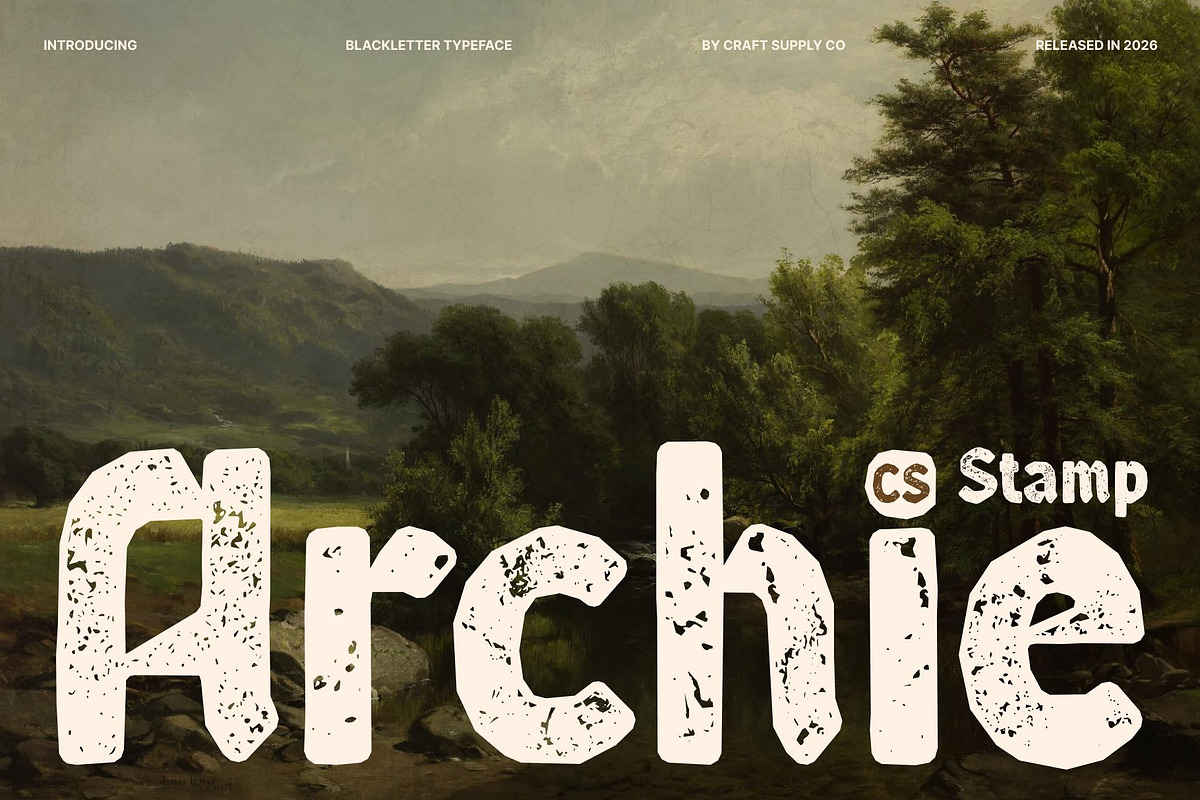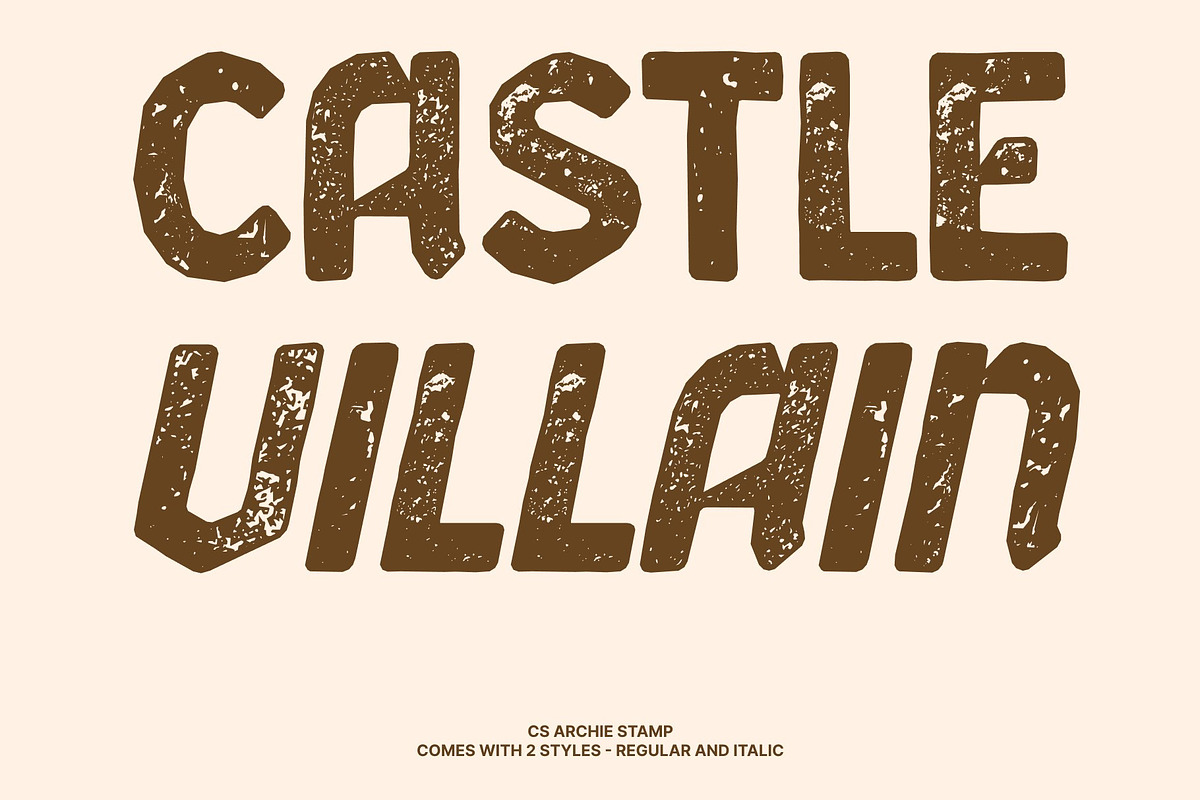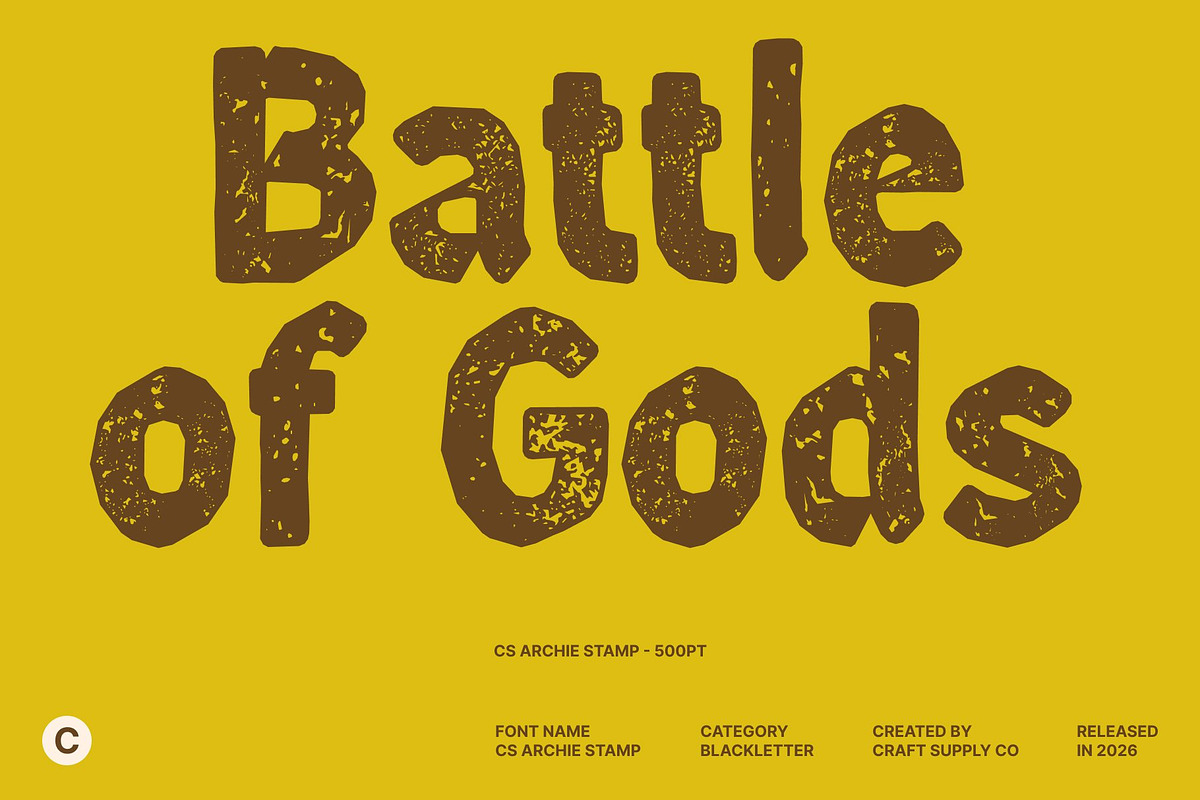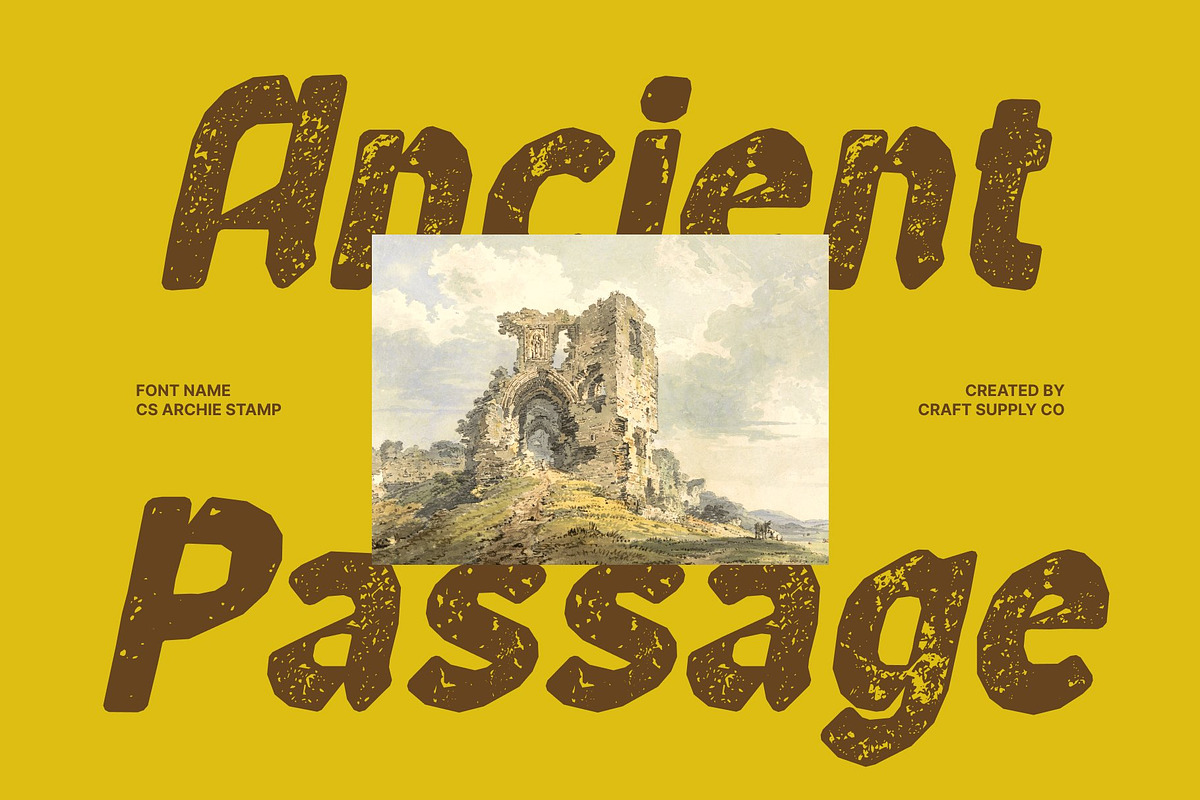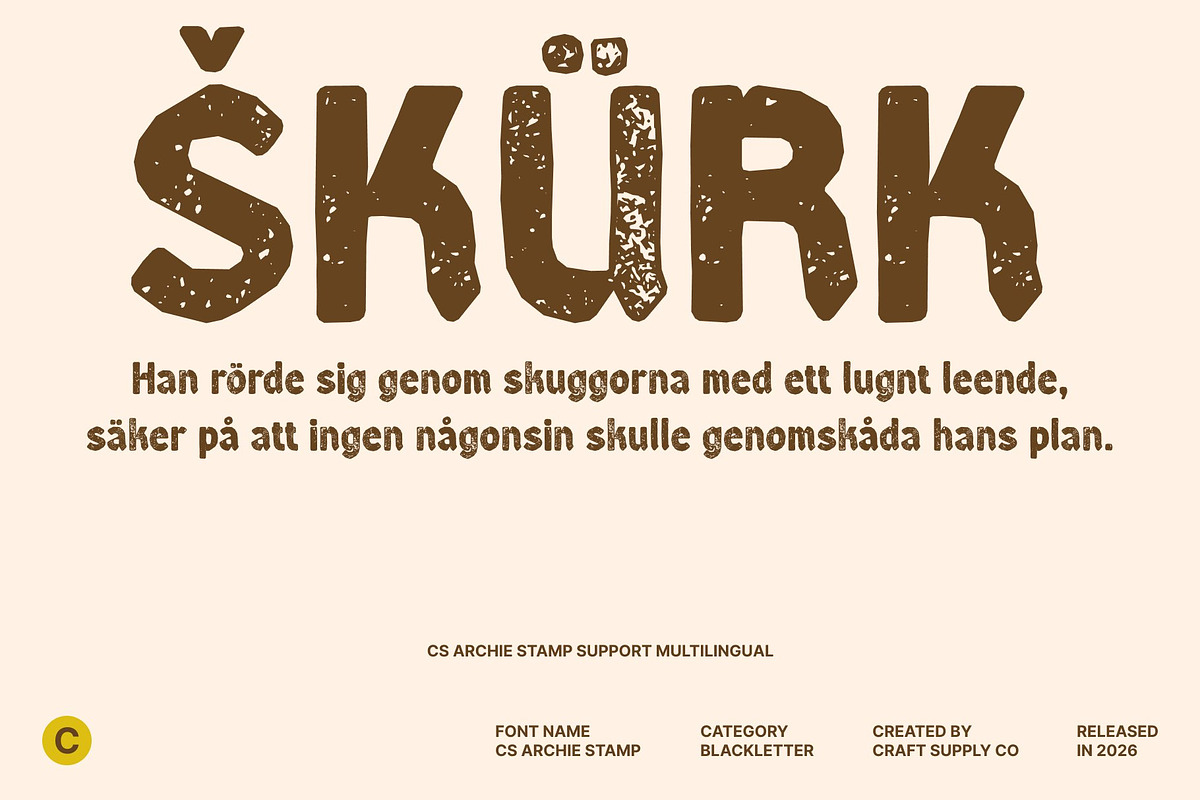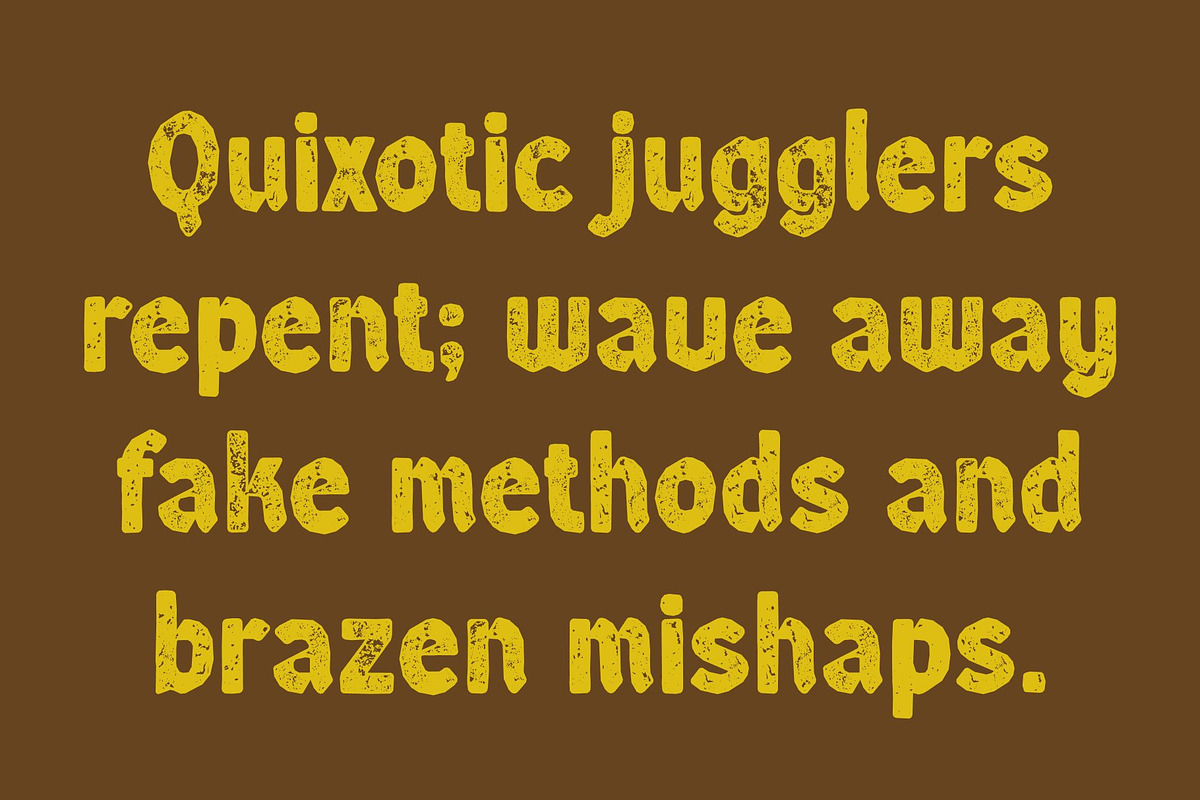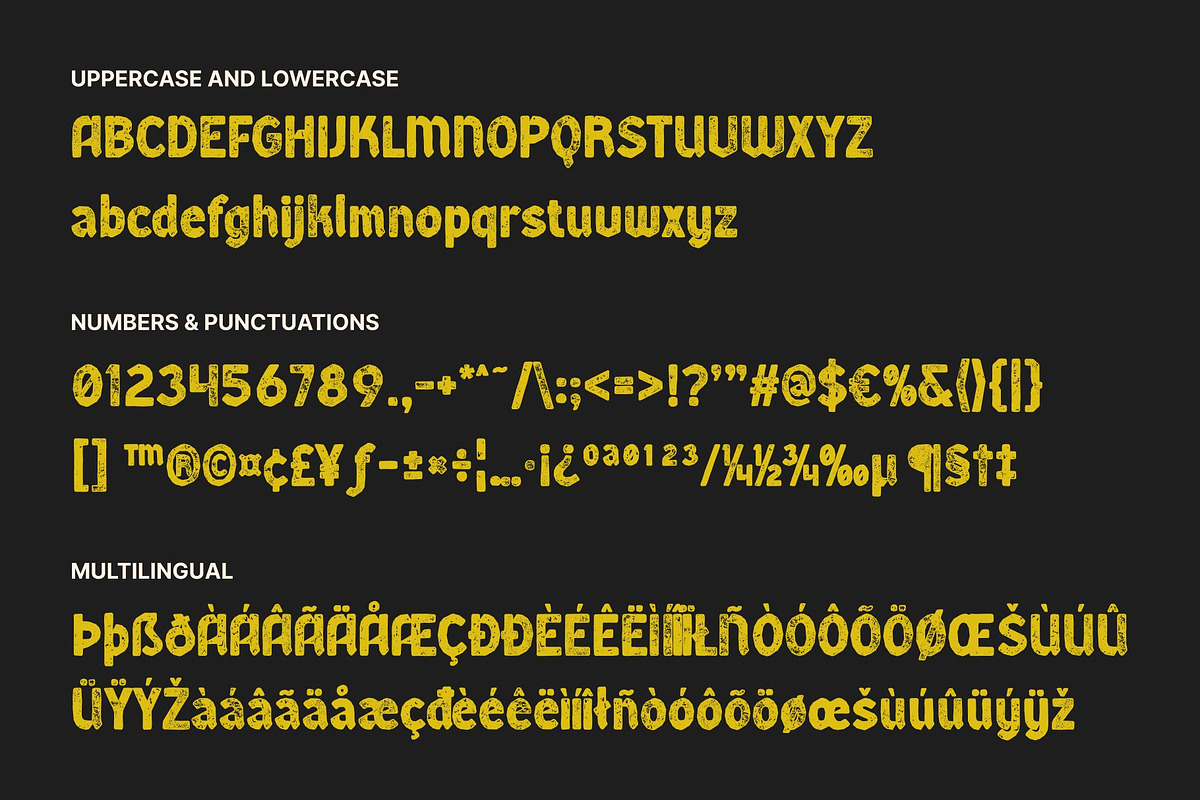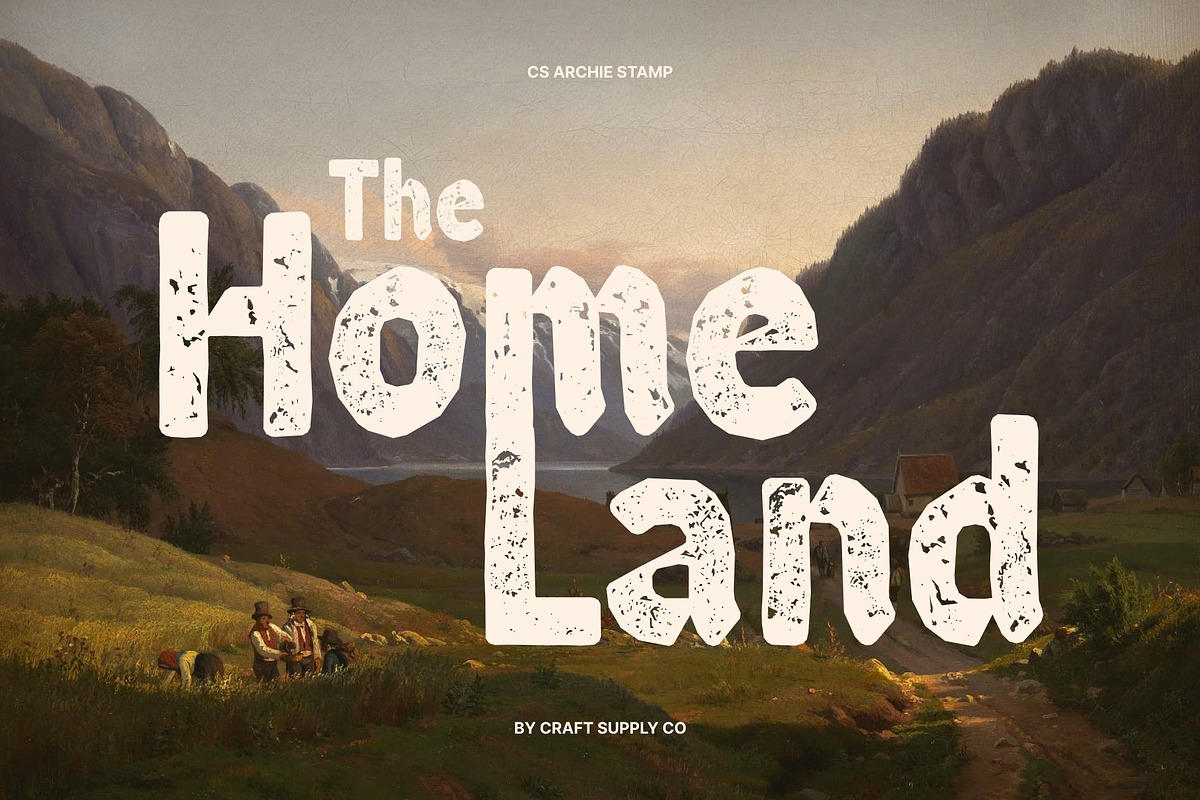
CS Archie Stamp
CS Archie Stamp – Blackletter Font: Classic Elegance Meets Modern Boldness Classic Blackletter Strength with Vintage Stamp Texture This is a modern Blackletter display font that merges classic elegance with bold contemporary strength, enhanced by a distinctive stamp effect. Its prominent, powerful letterforms retain the authoritative spirit of traditional Blackletter, while the stamped texture introduces a tactile, slightly distressed finish that evokes vintage print and handcrafted authenticity. The result is a font that feels commanding, expressive, and rich in character.
Striking Presence with Timeless Authority The bold Blackletter structure gives this font a strong and confident voice. Sharp details and solid strokes communicate prestige and dominance, while the stamp effect softens the perfection with artistic texture, adding depth and visual interest. This balance creates a sophisticated impression that feels both historical and modern at once.
Perfect for High-Impact and High-Profile Projects Designed for impactful applications, this font excels in luxury branding, formal invitations, posters, packaging, and promotional materials that demand attention. Its bold presence ensures visibility, while the vintage texture adds uniqueness and emotional weight making every design feel intentional and memorable.
Authority, Prestige, and Artistic Character With its modern Blackletter foundation and old-style stamped finish, this font conveys authority, prestige, and confidence in every letter. It is an ideal choice for designers seeking a font that blends historical grandeur, modern boldness, and vintage artistic texture into one powerful visual statement.